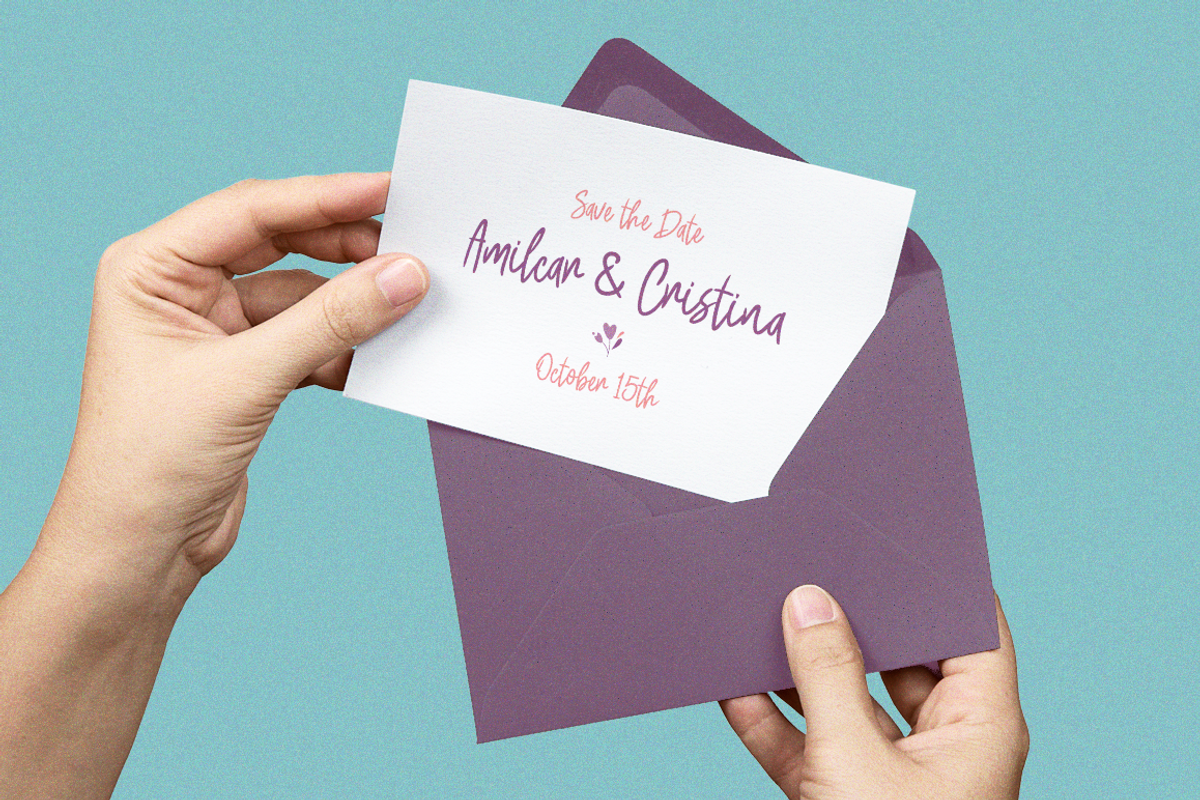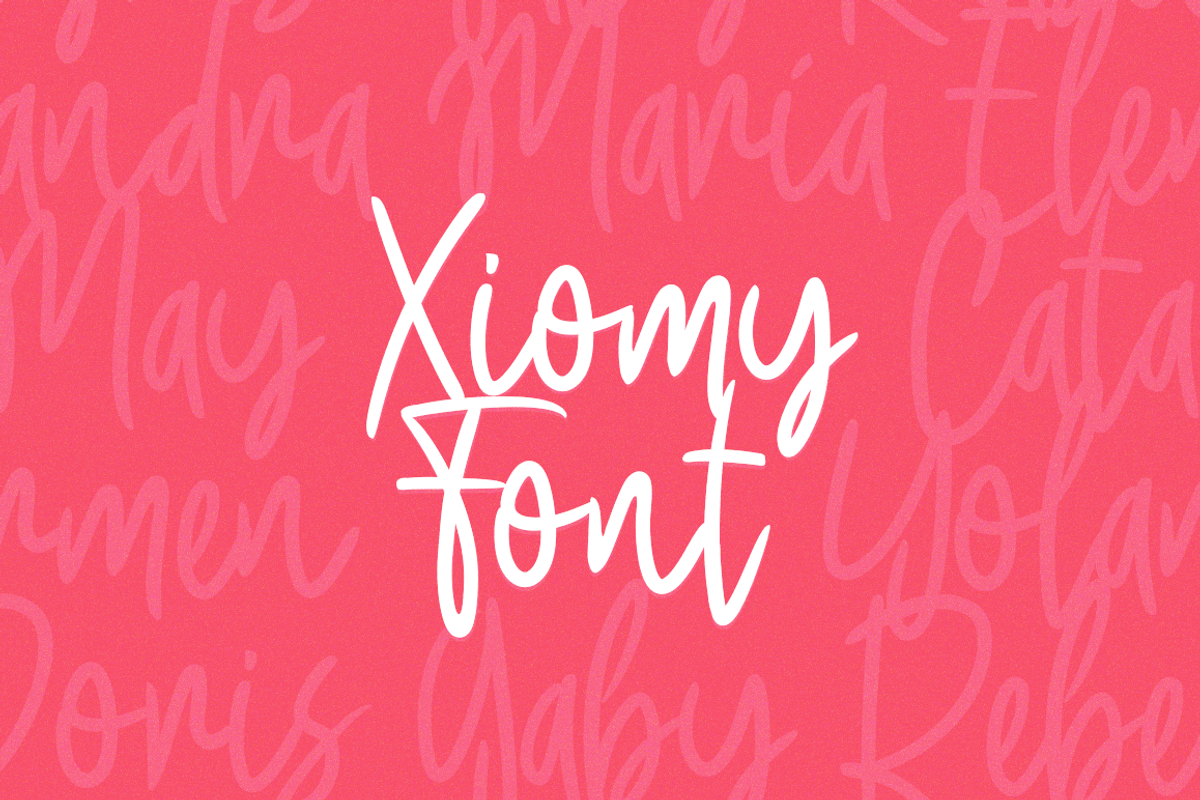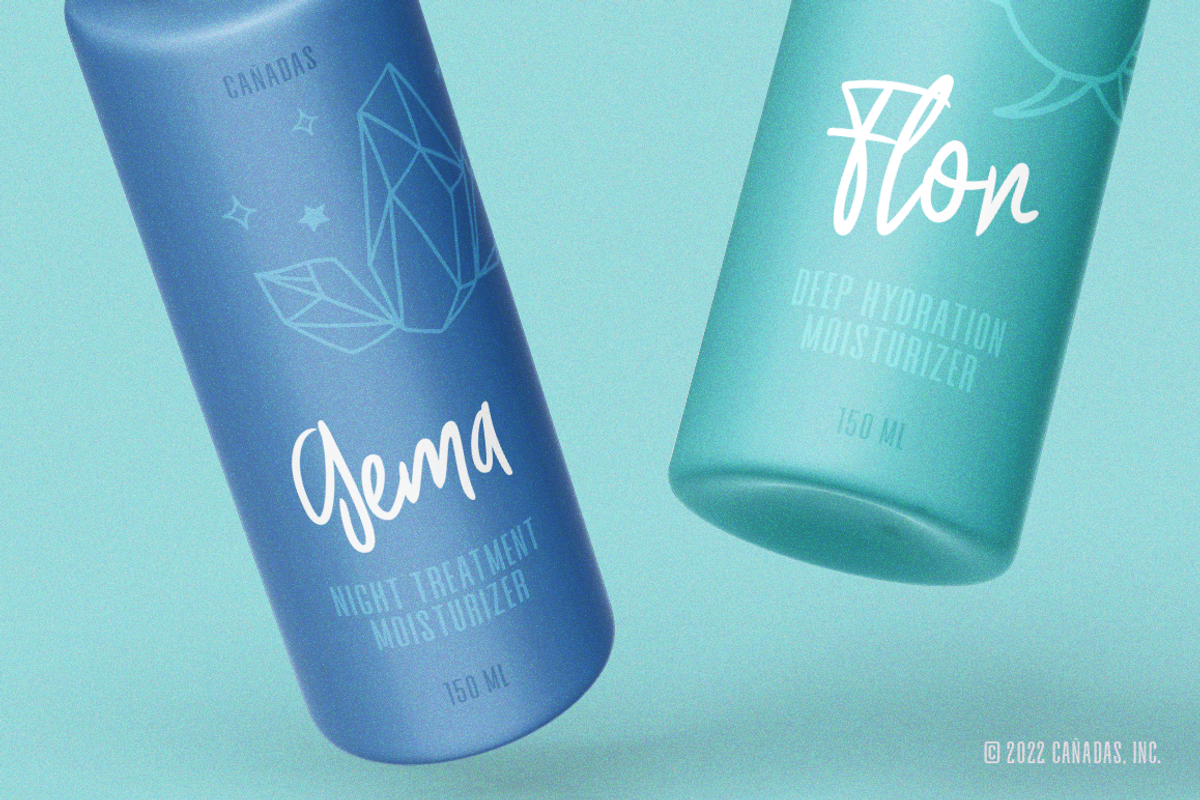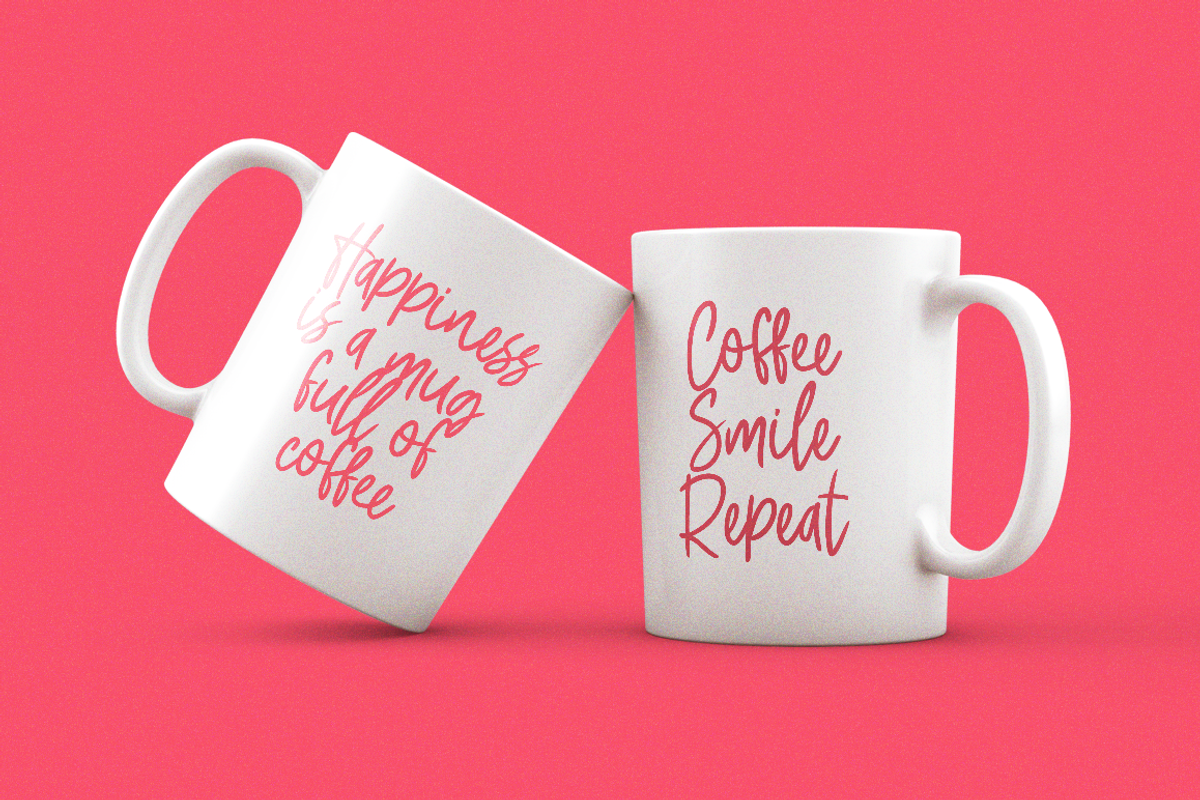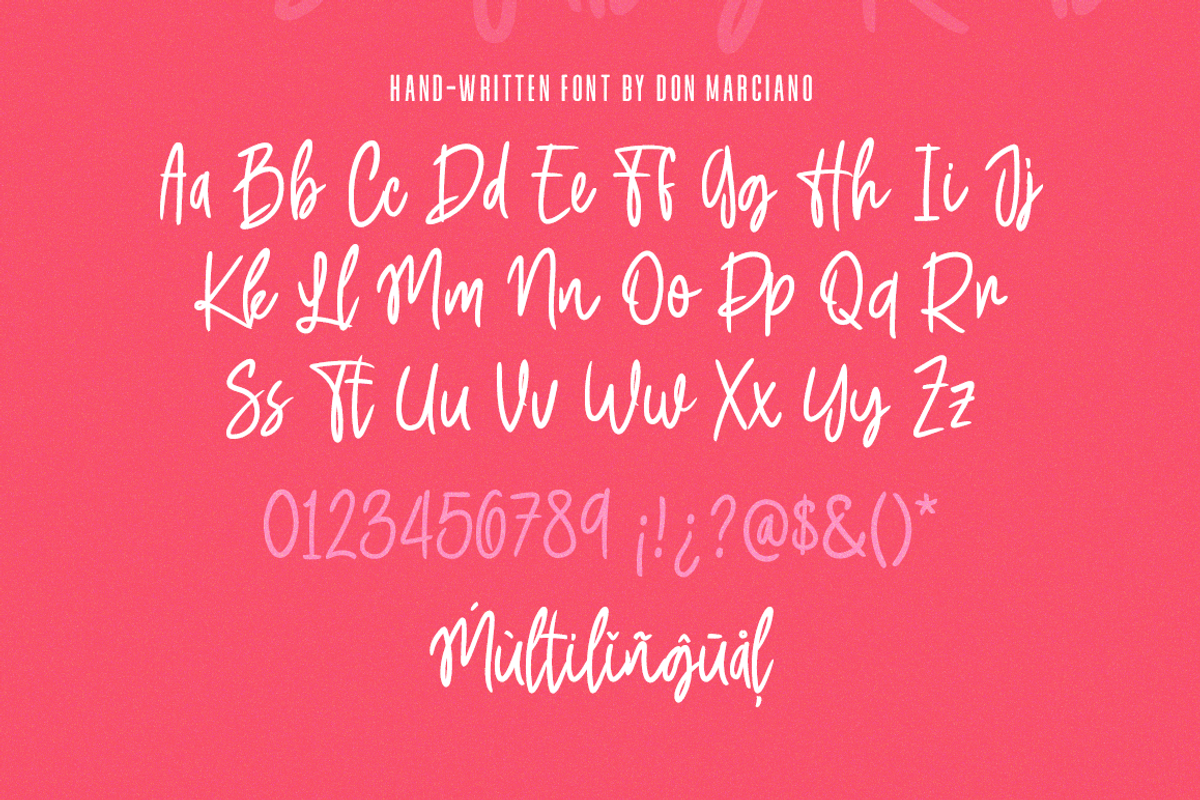
Xiomy
Xiomy is a hand-written script font created for designs that evokes that free spirit casual style, with a modern aesthetic and relaxed look, this font offers a “don’t worry” attitude that helps accentuate any type of promotional related design. The file includes uppercase and lowercase characters, standard punctuation, and international characters for multi-language support features to help you create amazing creative results.